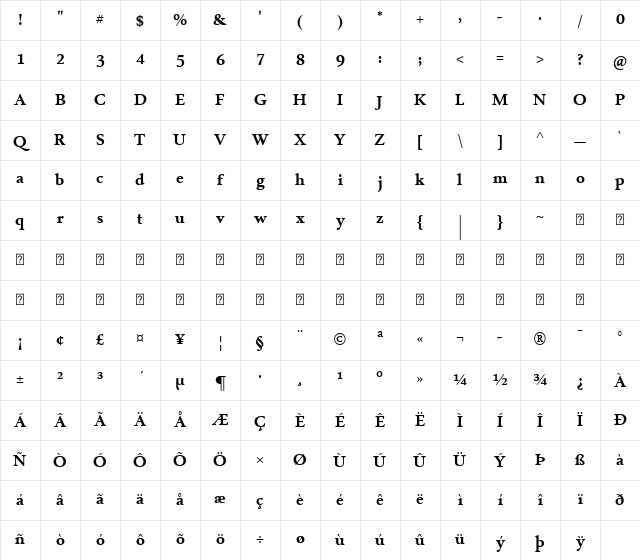
Complete Microsoft Uighur Bold glyph index. Displaying only characters natively supported by Microsoft Uighur Bold font.
Microsoft Uighur is a composed and adaptable typeface that performs quietly and consistently across a wide range of design contexts. Its bold stroke weight gives it real presence on the page.
Who designed the Microsoft Uighur Bold font?
This font was published by Microsoft. Check the technical specs section for copyright and designer details.